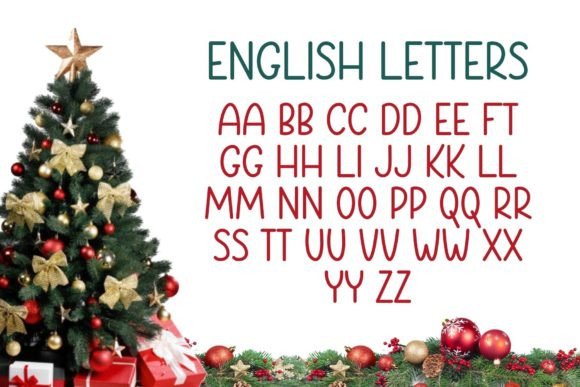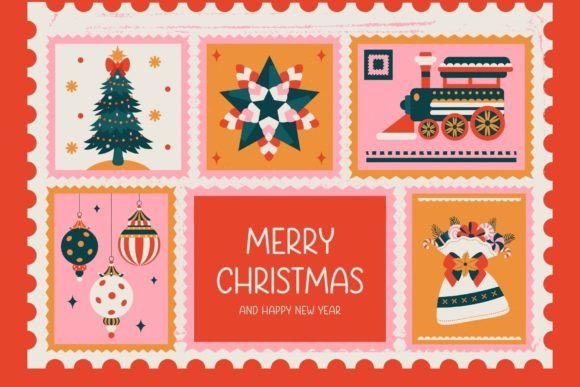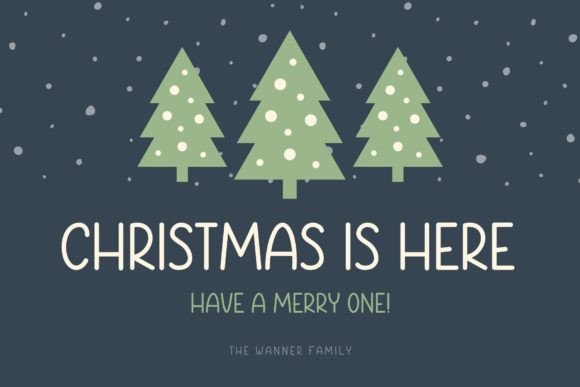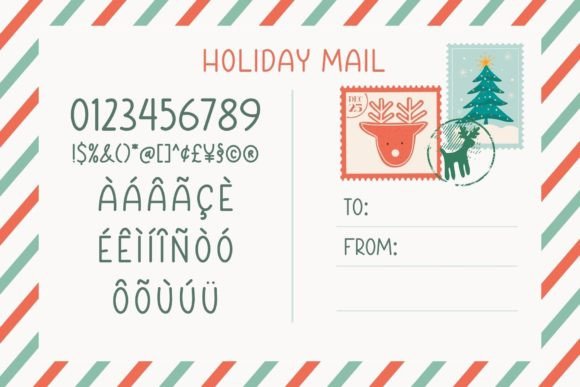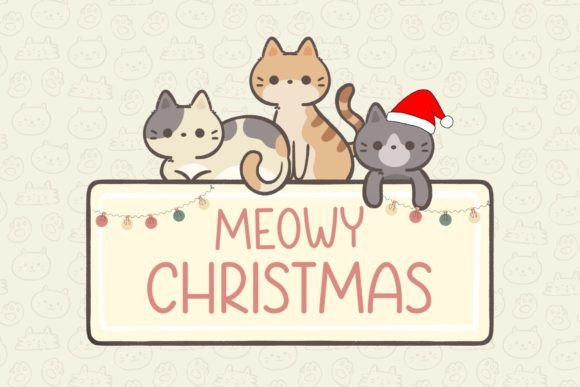
The Magic of Bethany Font: A Holiday Delight
It’s that time of the year again – the season of twinkling lights, cozy sweaters, and endless creativity. As designers, crafters, and creative hobbyists, we’re always on the lookout for that perfect font to capture the essence of the holidays. I still remember the year I spent hours searching for the ideal Christmas font for a client’s project, only to settle for something that was, well, just okay. But then I discovered Bethany Font, and it changed the game.
A Personal Encounter with Bethany Font
I was working on a festive holiday card project for a client who wanted something that felt both whimsical and warm. As I scrolled through my font library, Bethany Font caught my eye. Its handwritten style and delightful flair immediately won me over. I knew right then and there that it was the perfect fit for the project. And, as it turned out, the client loved it just as much as I did!
An Honest Review of Bethany Font
So, what makes Bethany Font so special? Let’s dive into the good stuff and a few quirks to keep in mind.
- ✨ Cute, Whimsical Style: Bethany Font is the epitome of holiday cheer, with a playful, handwritten style that instantly adds a festive touch to any project.
- ✅ Easy to Read: Despite its whimsical nature, Bethany Font remains surprisingly legible, even at smaller sizes.
- 🎉 Versatile: Whether you’re designing holiday cards, gift tags, or social media graphics, Bethany Font adapts beautifully to various contexts.
- 🤔 Limited Use Outside of Holidays: While Bethany Font is amazing for holiday projects, it might not be the best choice for other times of the year. Its festive nature might feel out of place in non-holiday contexts.
The Story Behind Bethany Font
Bethany Font was inspired by the classic holiday illustrations of the early 20th century. Its creator aimed to capture the warmth and whimsy of those bygone eras, bringing a touch of vintage charm to modern designs. The result is a font that feels both nostalgic and fresh.
Bethany Font is more than just a holiday font – it’s a way to infuse your designs with warmth, joy, and a touch of festive magic. Whether you’re a designer, crafter, or hobbyist, Bethany Font is sure to become a favorite in your collection.